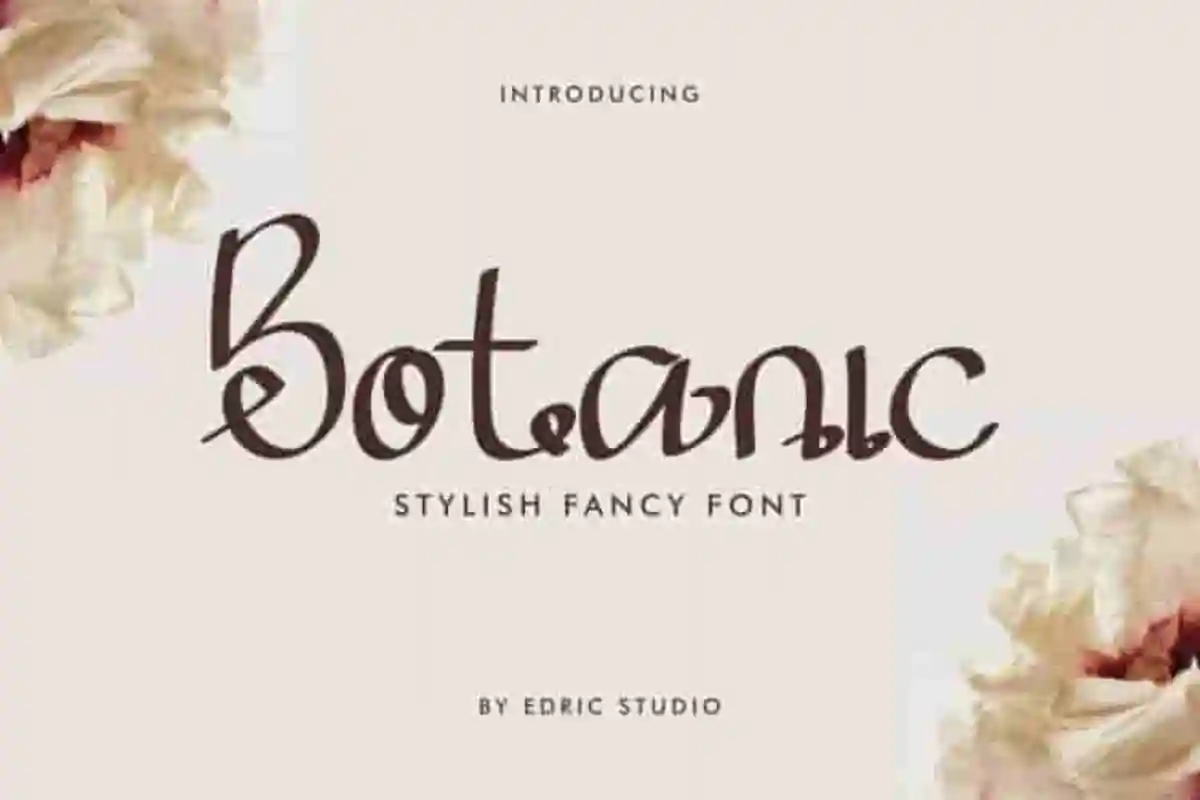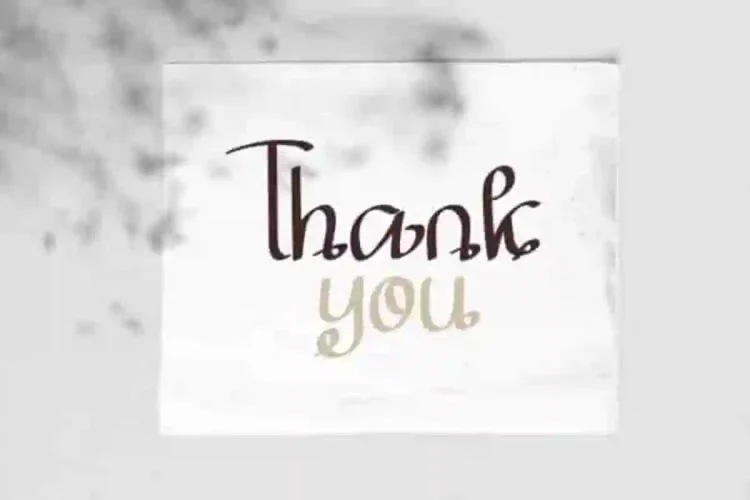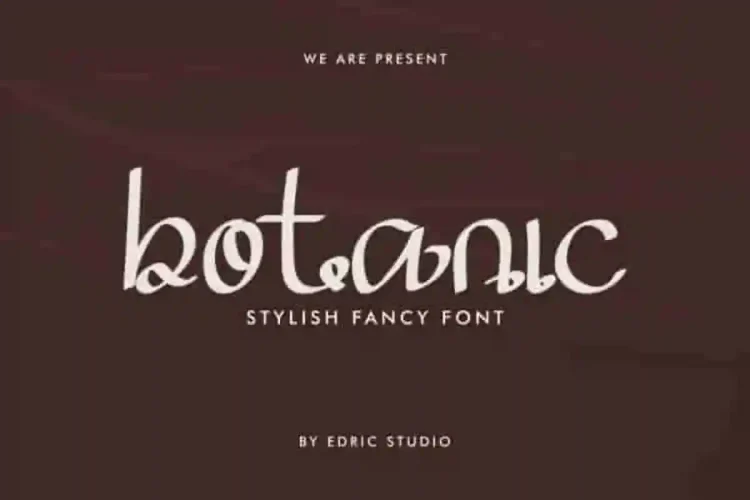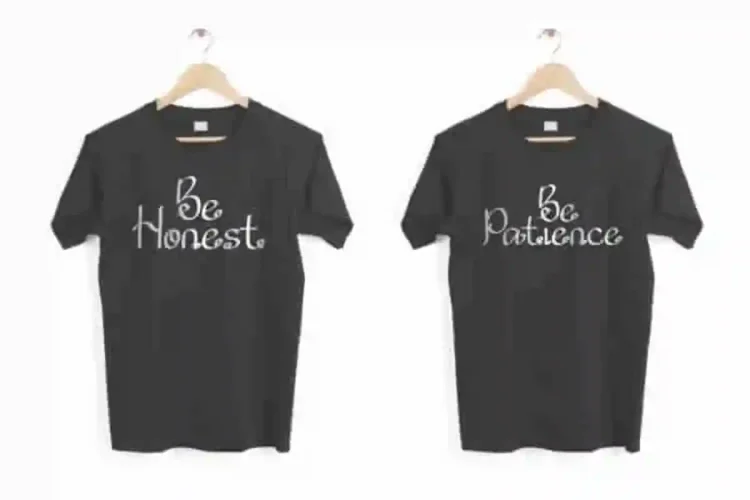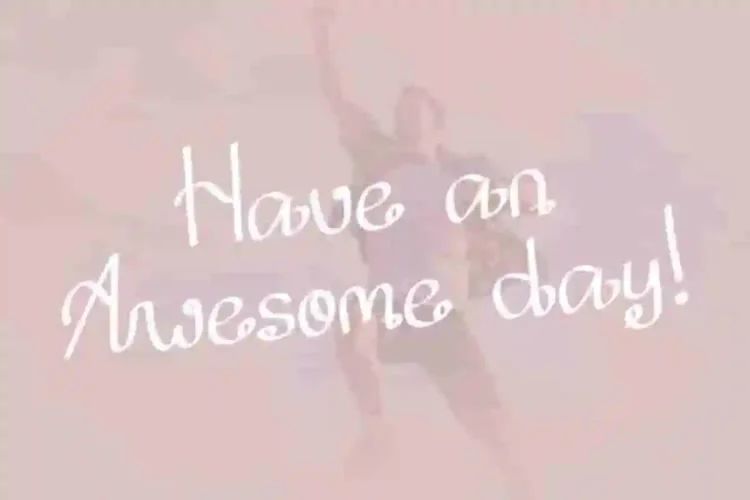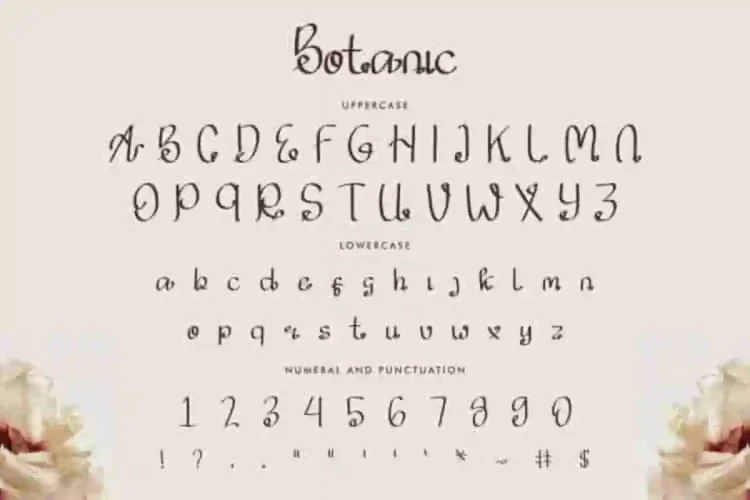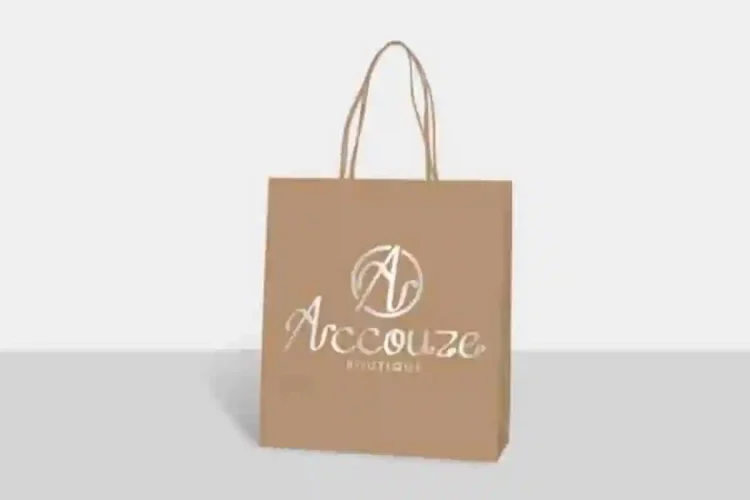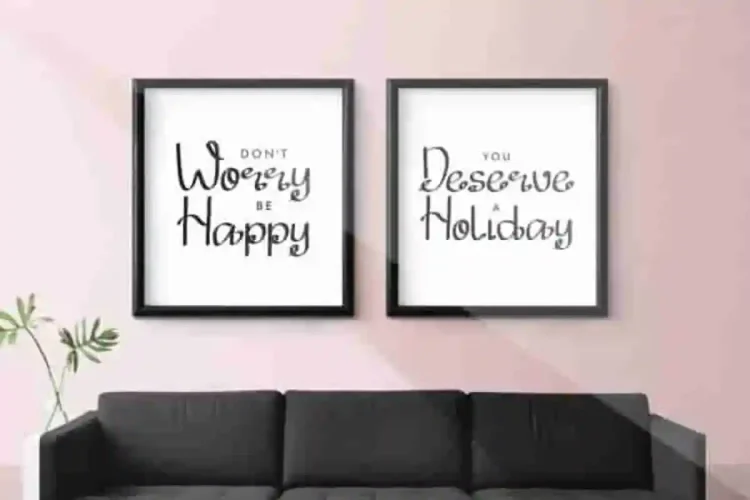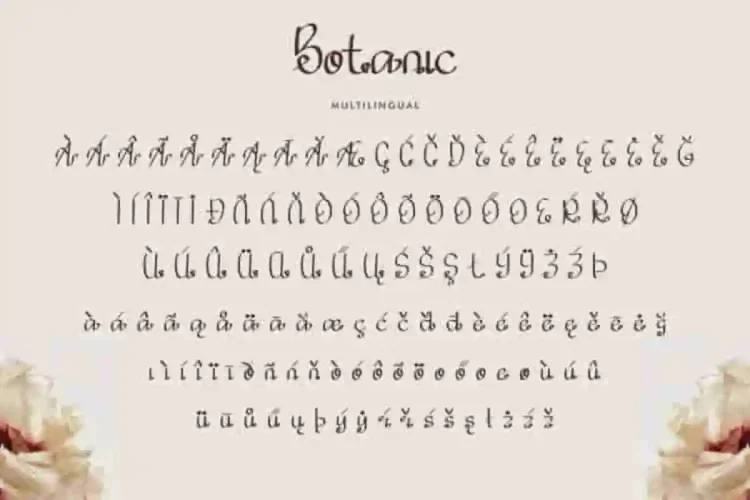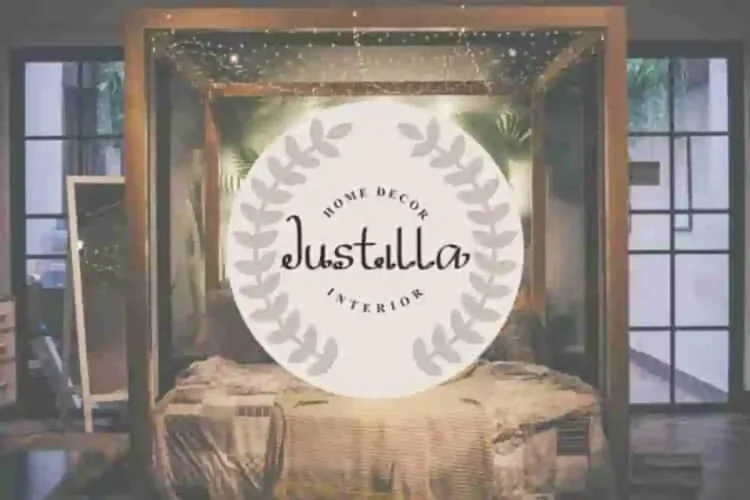
Botanic Fancy Handwritting Script Font
Botanic Handwritting Script Font is a fancy script font with unique style. Handmade script typeface crafted with passion in our Studio, Indonesia. Botanic Font is an exclusive handwritting font with unique styles : fun, casual, stylish and classic style. It has a great characters set, perfectly managed with well spaced and kerning.
Botanic Handwritting Script Font will be great for any projects  including : branding, logo (with extended license), stationery, business card, signage, flyer, brochure etc. Many industries will be match for this typeface: school, wedding, events, non profits foundation, florist, gardening, makeup artist, travel, hotel, musician etc.